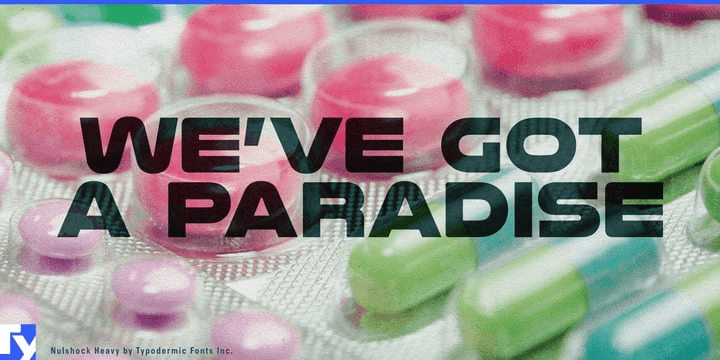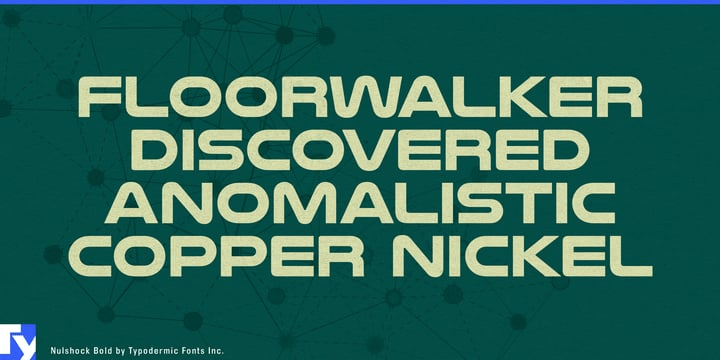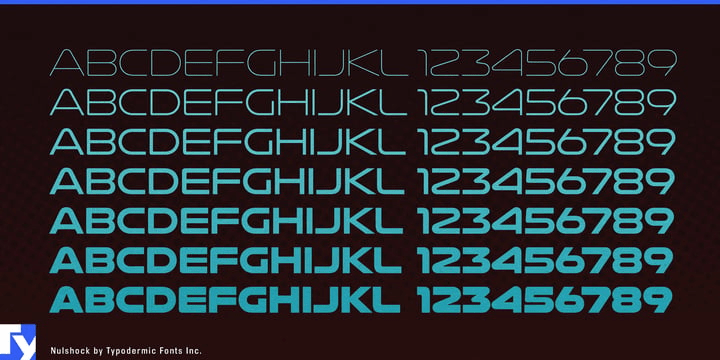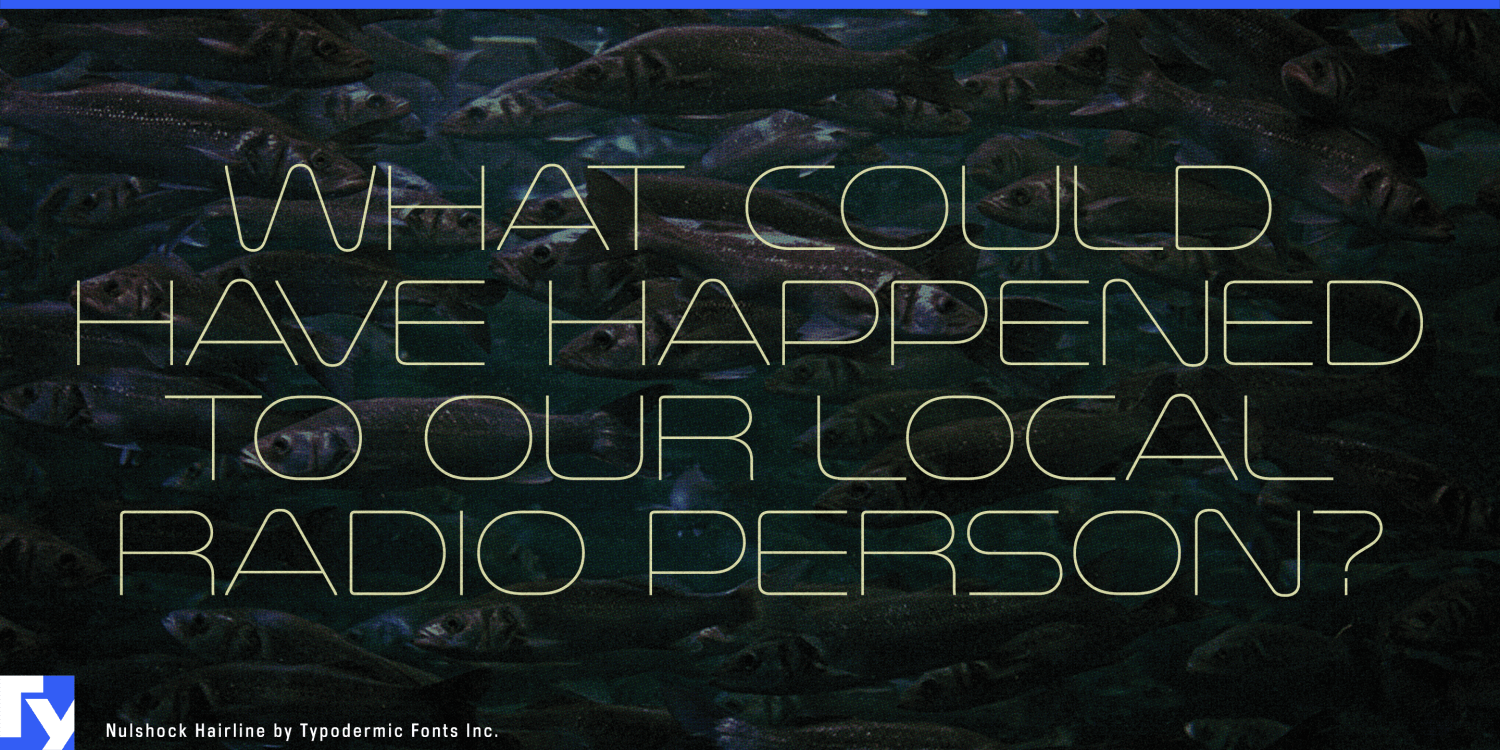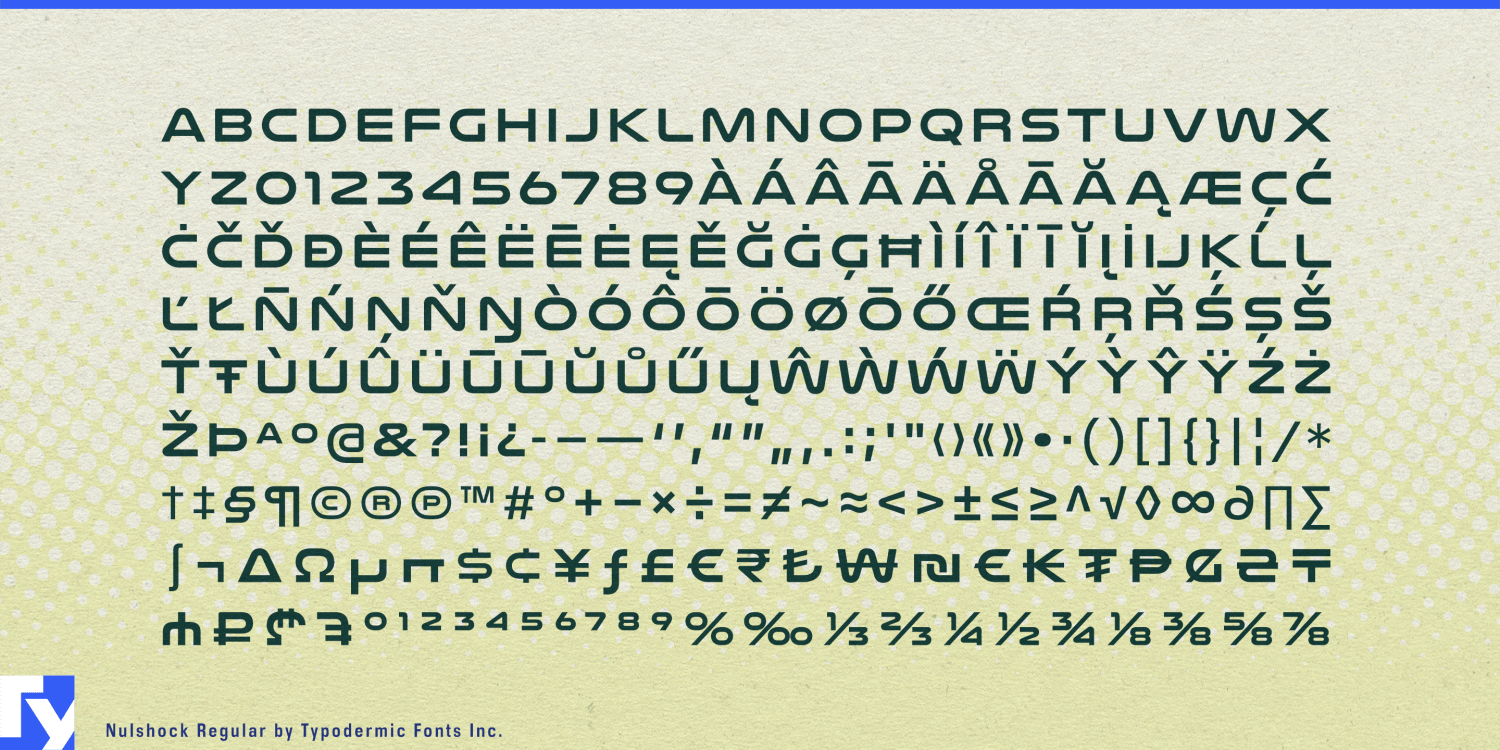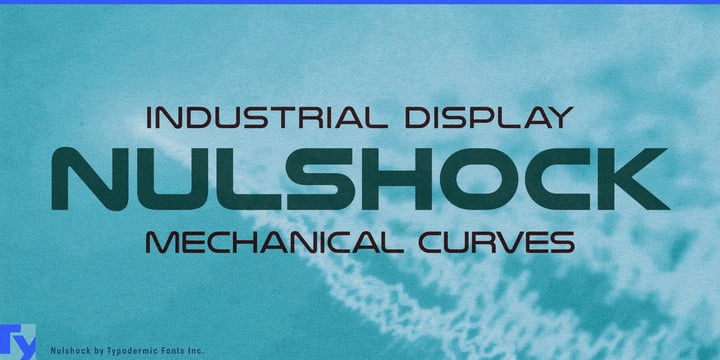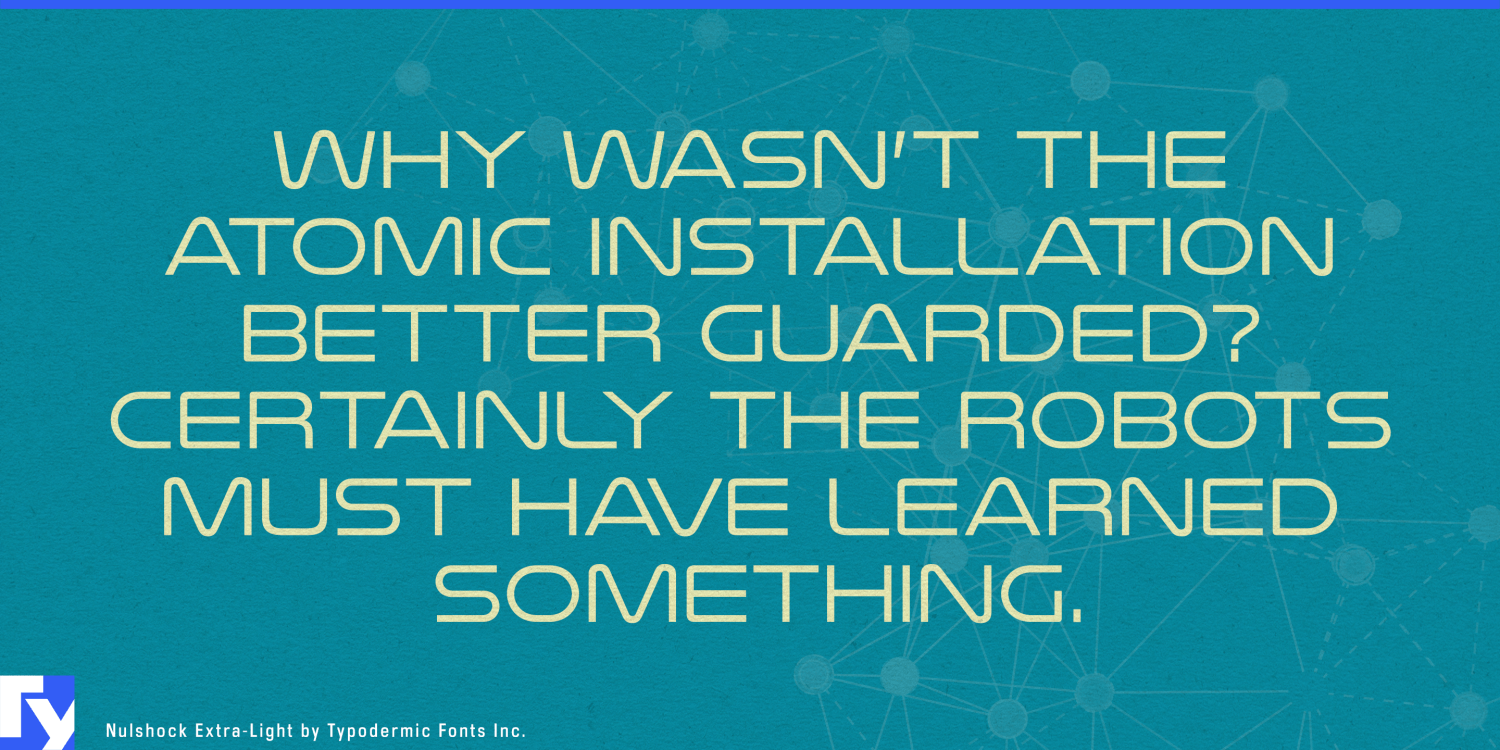
Nulshock
About Nulshock
Forge your message with the raw power of Nulshock, a typeface that embodies the relentless drive of industrial innovation. Like a finely tuned machine, each letterform is crafted with laser-like precision, its sleek contours and razor-sharp edges cutting…